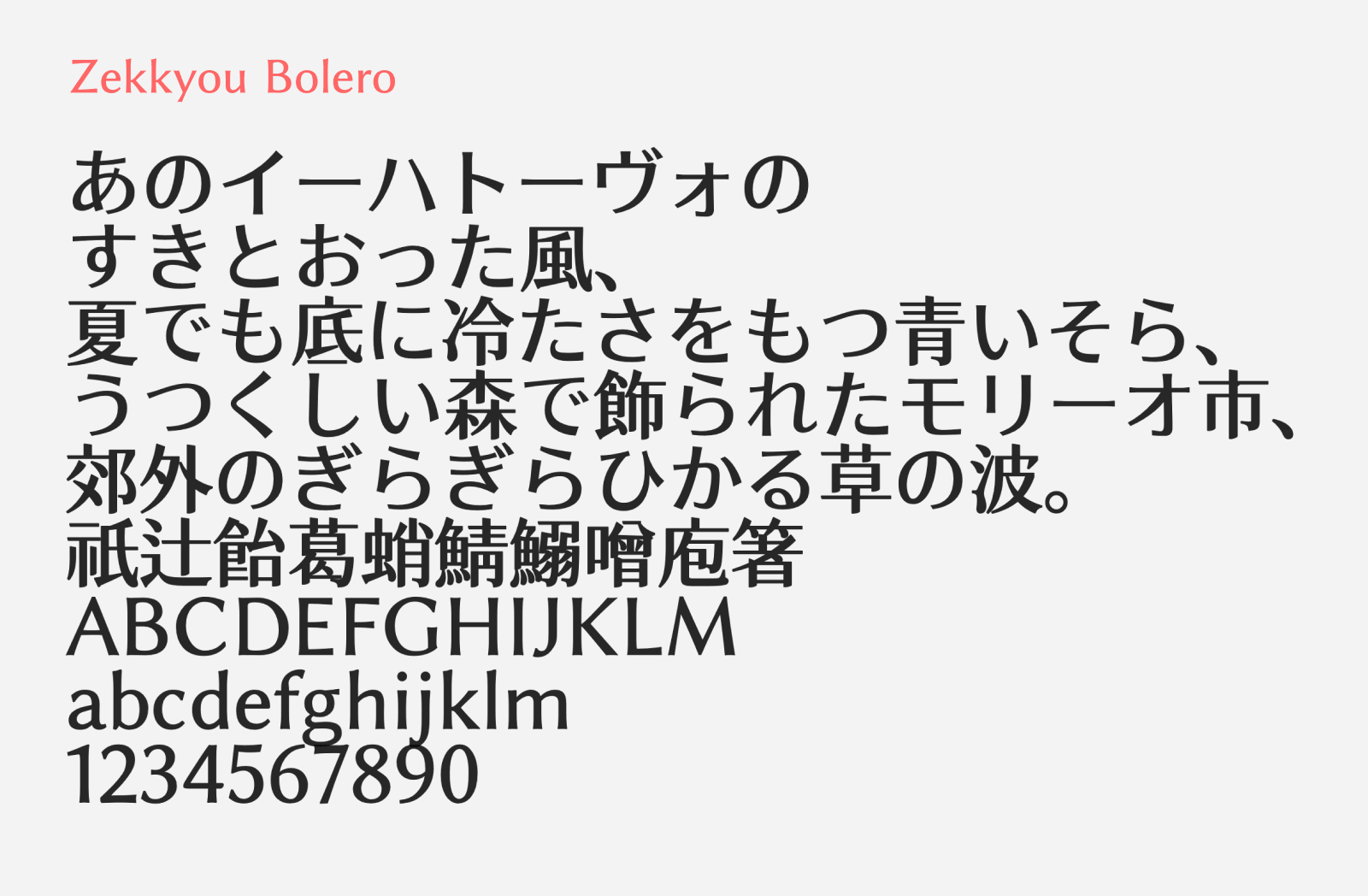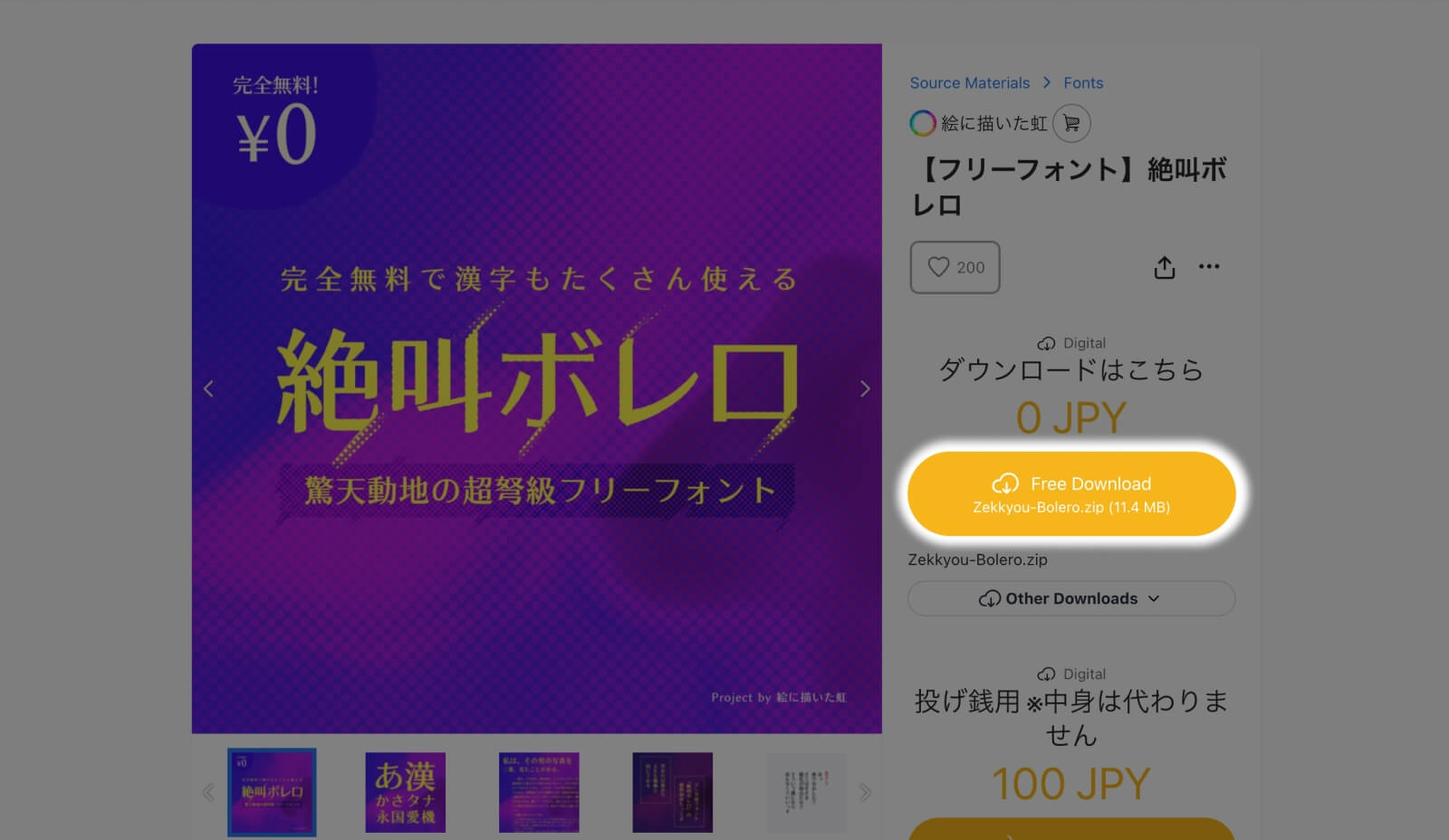
Zekkyou Bolero
Zekkyou Bolero (絶叫ボレロ) is a free-to-download “Typos style” Japanese font that was created based on two open-sourced font, by combining the kanji characters from Swei Spring JP in Bold weight, and the hiragana and katakana from GenEi LateGo V2. Typos style font (タイポス風フォント) is a style of font that carries the design characteristics of mincho (serif) strokes – the thin horizontal strokes and thicker vertical strokes, giving that stylish, classy contrasty look and combining with the cleanness and simplicity of gothic (sans serif) font. It’s akin to combining the best of both world I guess?
With its stylish and clean look, Zekkyou Bolero is suitable as typeface for ads and as brand font. It supports your common daily Japanese letters including hiragana, katakana and kanji characters. No official statement of the level of support, but with its large kanji library, I assume it at least fully compliant to JIS Level 2, which pretty much covers most use cases. You can download this font for free and be used in commercial projects, as this font is released under SIL Open Font License, v1.1.